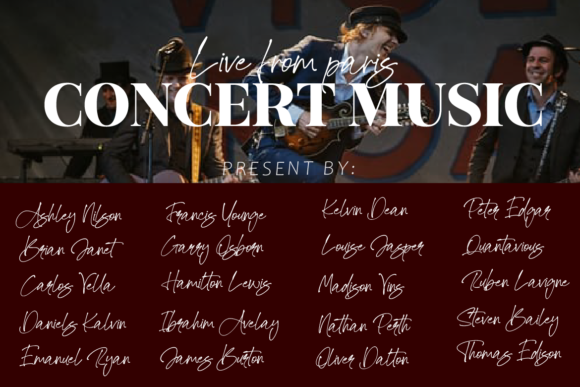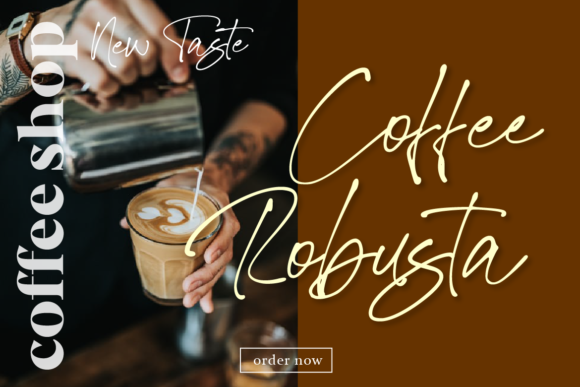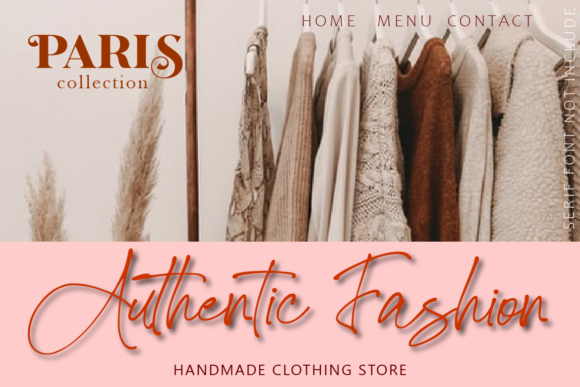
About Hello Beach Font
Hello Beach font is a modern and elegant handwritten font with varying thickness and a charming gesture. This font was created to look as close to a natural handwritten script as possible. Perfect for any awesome projects that need handwriting taste.